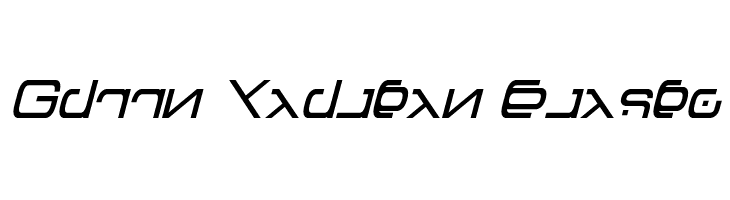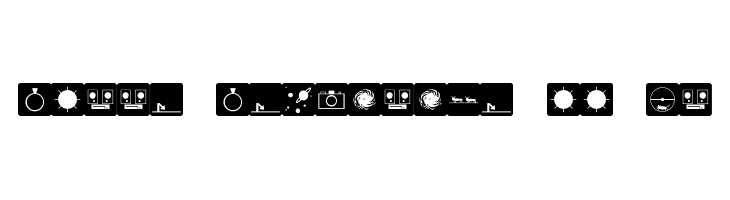
A playful set of bold, high-contrast symbols ideal for creative projects.
A bold, condensed, and italicized font with dynamic, energetic strokes.
A bold, edgy font with angular lines and a modern, rebellious style.
A modern, outlined font with bold, geometric characters and rounded edges.
A futuristic, bold, and slightly italicized font with a playful, modern style.
A bold, expressive script font with a lively, handwritten style.
A modern, italic sans-serif font with a sleek and dynamic style.
A bold, geometric font with a strong, angular design.
A futuristic, angular italic font with a sci-fi aesthetic.